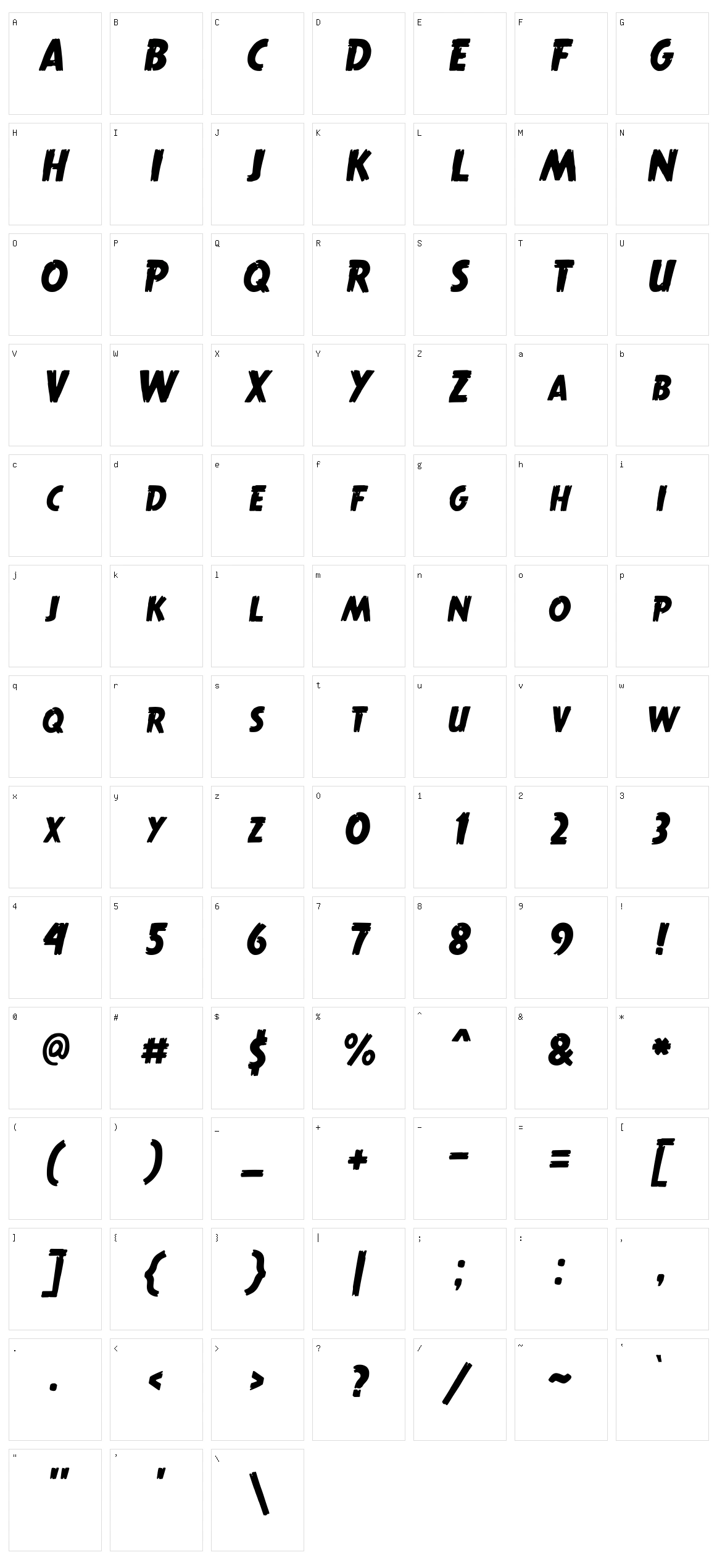
True Crimes Expanded
font by Walter Velez
revised by Vít Èondák
This font is based on the font True Crimes
by the late Walter Velez (28 November 1939 - 24 August 2018).
Velez published it on his website in 2002 but he never really finished it
(his version included only basic letters and numbers).
Unfortunately the original site had disappeared and it seemed
the font was never going to be finished so I decided to take
care of if and I revised the font.
I added the whole "Latin-1 Supplement" and "Latin Extended A" and I tweaked all margins and glyphs.
They are a bit more ballanced and smoother now (i.e. there are less points).
Tento font je zaloený na fontu True Crimes,
který vytvoøil ji zesnulý Walter Velez (28. 11. 1939 - 24. 8. 2018).
Velez font zveøejnil na svém webu v roce 2002, ale nikdy ho zcela nedokonèil
(jeho verze obsahovala pouze základní písmena a èíslice).
Pùvodní web u bohuel zmizel a zdálo se, e font u nebude nikdy dokonèen,
a tak jsem se rozhodl toho úkolu ujmout a font jsem upravil.
Pøidal jsem celé sekce "Latin-1 Supplement" a "Latin Extended A" a upravil jsem vechny okraje a glyfy.
Jsou teï trochu vyváenìjí a hladí (tj. jejich kontury obsahují ménì bodù).